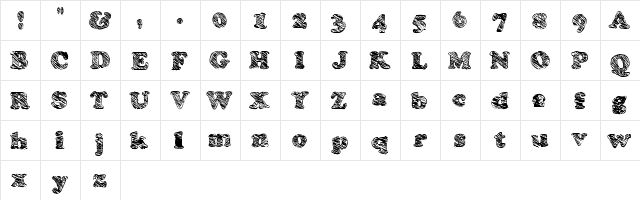
Skooper Black
Design Context for Skooper Typeface
Skooper is a composed and adaptable typeface that performs quietly and consistently across a wide range of design contexts.